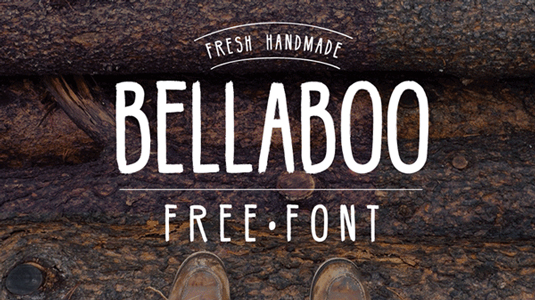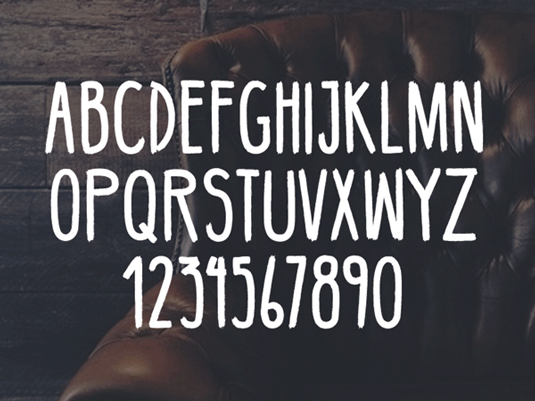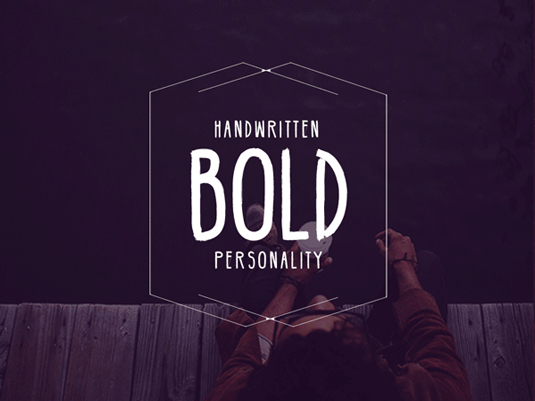
Font of the day: Bellaboo
Bellaboo by Marcelo Reis Melo
In need of an authentic handwritten font for your latest project? Bellaboo by Marcelo Reis Melo may be just what you're looking for. A bold design, Bellaboo is great for creating eye-catching headlines, posters and more.